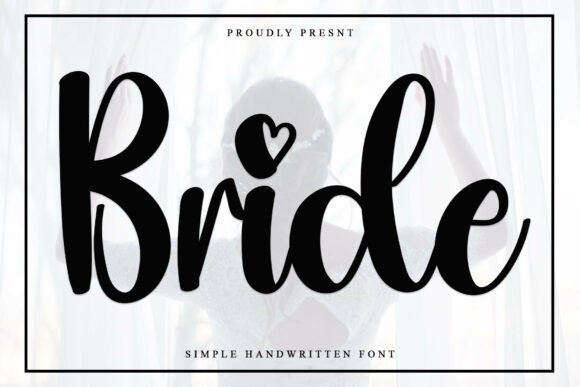
The Bride Font: A Timeless Beauty for Your Designs
Have you ever been in the middle of a design project, and suddenly, you just can’t seem to find the right font? I certainly have! It was a few years ago when I was working on a wedding invitation suite for a client. She wanted something elegant, yet playful, and I was determined to deliver. That’s when I stumbled upon the Bride font. It was love at first sight! 💕
The Bride font is a lovely and timeless handwritten font that has become a staple in my design toolkit. Its unique and beautiful touch makes every letter come alive, perfect for creating eye-catching logos, branding, and quotes.
- ✨ Unique and beautiful handwritten style
- ✅ Perfect for logos, branding, and quotes
- 💫 Works well for both digital and print designs
- 🎨 Highly versatile and can be used for various design projects
While the Bride font is amazing, there are a few things to keep in mind:
- ⚠️ Some letters may require manual kerning for optimal spacing
- 🤔 Limited availability of stylistic alternates, but still offers a range of OpenType features
The Story Behind the Bride Font
The Bride font was designed with love and care by a talented type designer who aimed to create a beautiful, handwritten font for wedding designs and more. Inspired by classic calligraphy and modern handwriting, the Bride font has become a popular choice among designers and crafters.
Q: What type of designs is the Bride font best suited for?
A: The Bride font is perfect for creating eye-catching logos, branding, and quotes, as well as wedding designs, social media graphics, and more.
Q: Does the Bride font come with any OpenType features?
A: Yes, the Bride font offers a range of OpenType features, including ligatures and stylistic alternates.